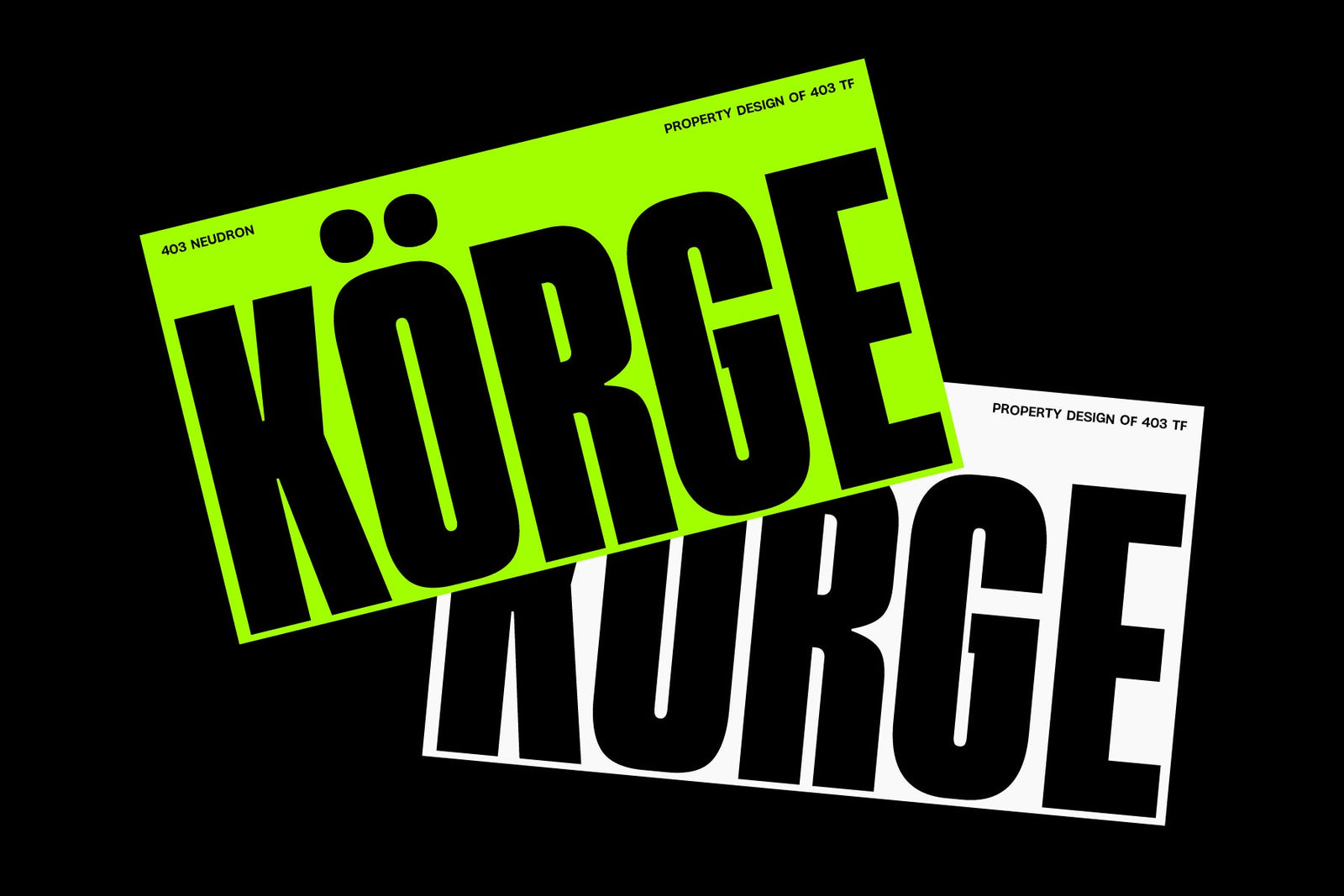
A brutalist typeface doesn't apologise for its weight. The counters are tight, the stress is vertical or nonexistent, and the corners stay exactly where the grid put them. Nothing softens on approach. The rawness comes from a set of structural decisions: condensed proportions that force letters to compete for space, contrast that refuses to gradient into subtlety, and a general unwillingness to round anything off just to seem friendlier. That's the part people miss when they treat brutalist type as a mood board keyword instead of a construction method.
It's also having a genuine moment for reasons that go beyond nostalgia. 2026 trend coverage keeps circling back to the same idea: brutalist design isn't about looking rough, it's about being impossible to scroll past. Bold typography, raw layout logic, high contrast, decisions that don't hedge. At the same time, PRINT magazine's 2026 Type Report has flagged something more specific: visible human engineering in type is becoming a critical marker of quality, precisely because it sits in contrast to AI-generated sameness. A brutalist face with intentional structural rawness reads as made by someone. That's not a small thing when every second logo and headline on your feed looks like it was assembled by a prompt.
None of this means brutalist type is one look. The range is wide, from Swiss-grid-descended geometric constructions with almost architectural discipline, all the way through to hand-inked, damaged, photocopied-at-3am versions of the same underlying logic. What holds the category together isn't texture, it's intent. Here's what that looks like across eight typefaces that each prove a different structural point.
The clean geometric baseline: 403 Neudron
403 Neudron is the control group. Bold, condensed, built on simple geometric shapes with no interference, no distress, no ornament. This is what happens when you strip a display sans down to the proportions doing all the work: tight counters, a narrow footprint, uppercase forms that stack into a headline like scaffolding. It's the clearest demonstration in this list of the idea that brutalism is a Swiss-grid principle before it's an aesthetic, function and clarity dictating form, decoration stripped out entirely. Put this on a poster or a band's merch drop and it reads instantly, no styling required. That's the point. When a font is this structurally sound, restraint is the flex.
The same logic, put through physical wear: 403 Sparco
Coming from the same foundry, 403 Sparco takes the Neudron logic and drags it through concrete. It's wider, heavier, and built specifically to bridge clean digital precision with raw physical grit, ink bleed, boxy terminals, a slight slant that reads as structural stress rather than styling. Seeing both fonts side by side is the best possible lesson in what brutalism actually is: not a fixed level of damage, but a spectrum built on the same skeletal decisions. Sparco proves that texture can be added to a geometric base without breaking its logic, provided the underlying proportions were sound to begin with. Weak structure plus grunge texture just looks messy. Strong structure plus grunge texture looks intentional.
Condensed proportions borrowed from the screen: PS Tier
PS Tier pulls its DNA from movie titling, tall, condensed, dramatic in a way that's specifically cinematic rather than industrial. This is a useful case study because it shows condensation doing a different job than it does in Neudron or Sparco. Here the narrowness isn't about urban edge, it's about scale and drama, the kind of proportions built to fill a poster or hold a title card. It's warmer in feel than the 403 pair despite sharing the same underlying geometric bones, proof that condensed and brutalist aren't synonyms. The tightness is the constant. What you do with it changes the read completely.
Grotesque structure aimed at the future: Ragman
Ragman sits in genuinely interesting territory, a modern grotesque with geometric precision that leans toward something closer to corporate-tech than street poster. This is brutalism doing branding work rather than protest-poster work, which matters because it shows the structural language scaling into contexts that need to feel considered rather than confrontational. The letterforms still refuse to round off unnecessarily, but the overall effect reads controlled, almost architectural. If you've got a client who wants "bold" but flinches at "aggressive," this is the version of brutalist structure that gets through the meeting.
Warmth without losing the frame: SLTF Tight Flight
SLTF Tight Flight is where the case for brutalism as pure severity breaks down in the most useful way. This one carries a distinctly 70s-inflected warmth, funky, a little playful, but it's still working from a geometric base and it still refuses to soften its core proportions. It proves that the "impossible to ignore" quality trend reports keep pointing to doesn't require coldness. You can build in personality and retro warmth and still have a typeface that holds its own as a bold, high-contrast headline-maker. Structure and mood are separate variables. This font keeps the first rigid while loosening the second.
Where grunge becomes structural, not decorative: Bootzy TM
Bootzy TM pushes further into damage than the 403 pair, with three stylistic sets that shuffle glyphs automatically so no two words look quite the same. This matters structurally: the erosion is baked into variable glyph sets designed for flyers, album covers, and merch where inconsistency reads as authenticity rather than error. It's the clearest example here of grunge as a deliberate system rather than a texture overlay, which is exactly the distinction that separates a font that photographs well on a mockup from one that actually holds up printed on a hoodie.
Distortion as tension, not decay: Casualte Alt
Casualte Alt is chunky, condensed, and deliberately photocopied-looking, as though it's been run through the machine one too many times. But the distortion here comes from tension built into the curves themselves, a more calculated move than it looks like at first glance. This typeface doesn't ask for attention, it takes it, and it does that by keeping the underlying condensed structure disciplined while letting the edges argue with it. That contrast, rigid frame versus unstable edge, is what makes editorial and poster work built on this font feel alive rather than just messy.